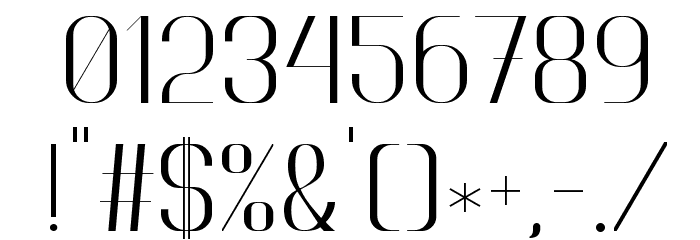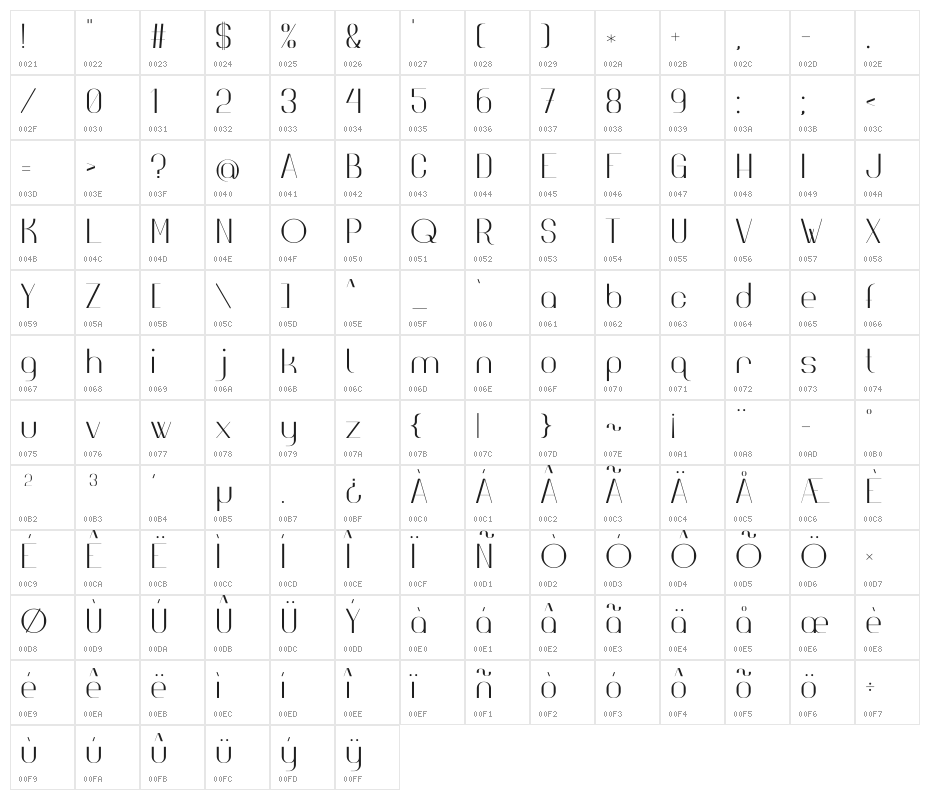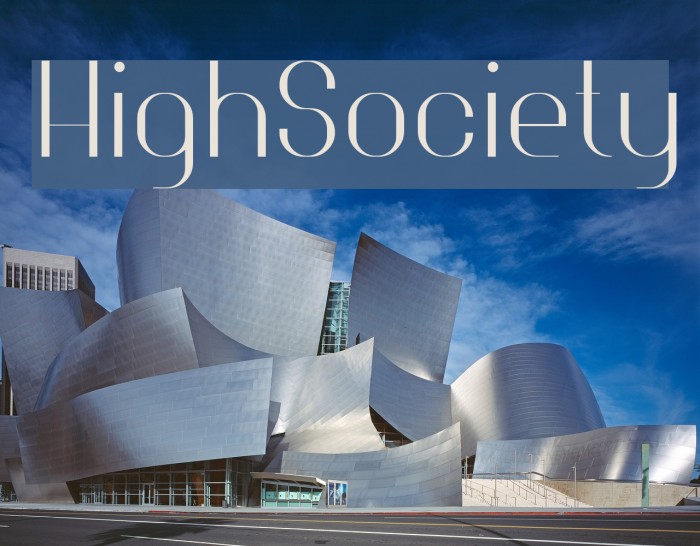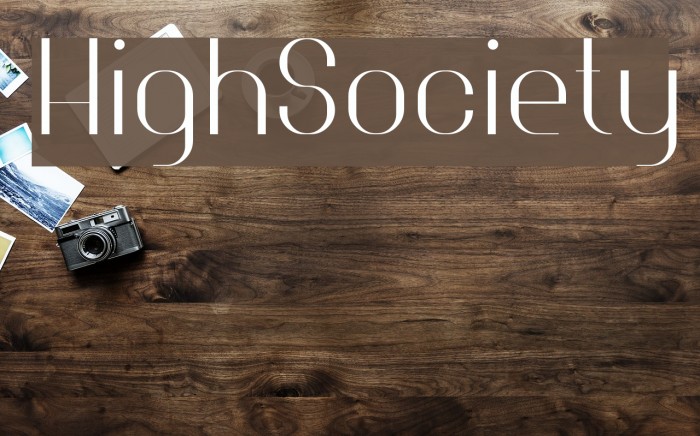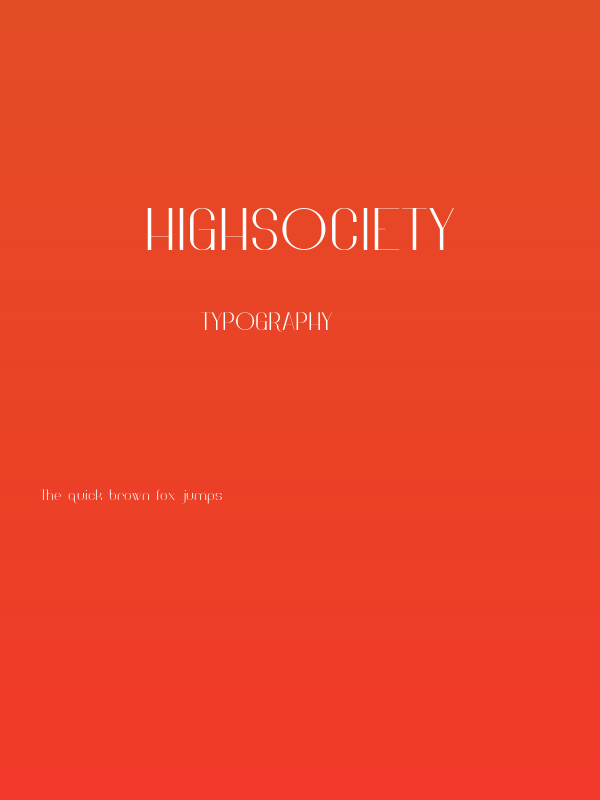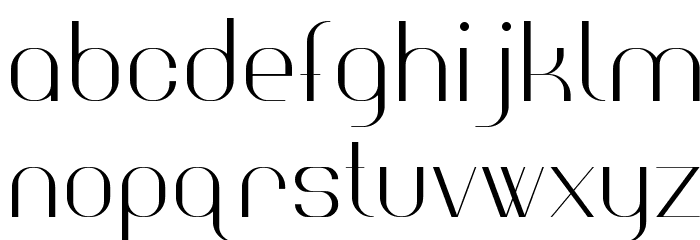
HighSociety Font
HighSociety Description
This font features a modern and sleek design with a high contrast between thick and thin strokes, giving it an elegant and sophisticated appearance. The uppercase letters are tall and narrow, while the lowercase letters maintain a consistent style with a slight curvature that adds a touch of softness. The numerals are clean and straightforward, matching the overall aesthetic. Special characters are designed with the same attention to detail, ensuring a cohesive look across all glyphs. The font's geometric structure and minimalistic approach make it ideal for contemporary design projects.
Thor Christopher Arisland - www.tcarisland.com
| Proposed Projects | Ideal for luxury branding, fashion magazines, high-end product packaging, and modern web design. |